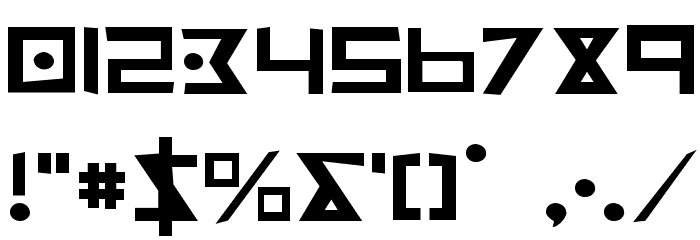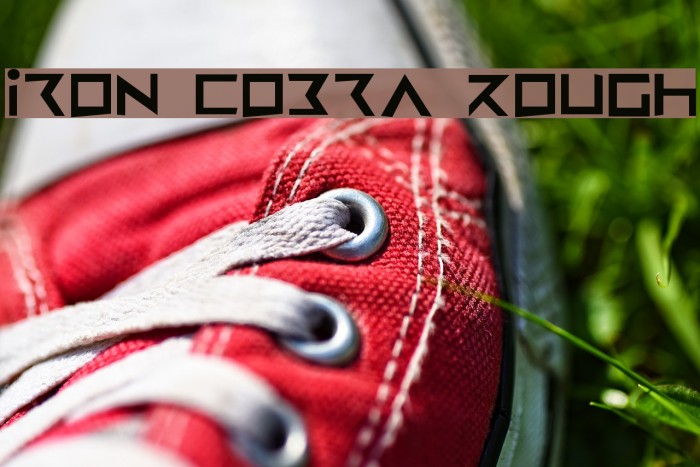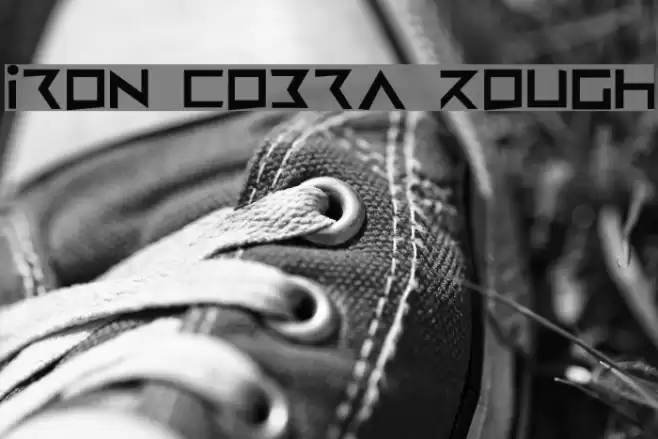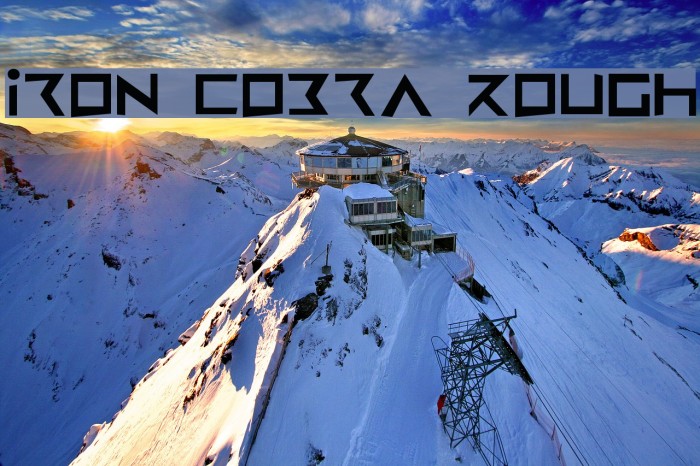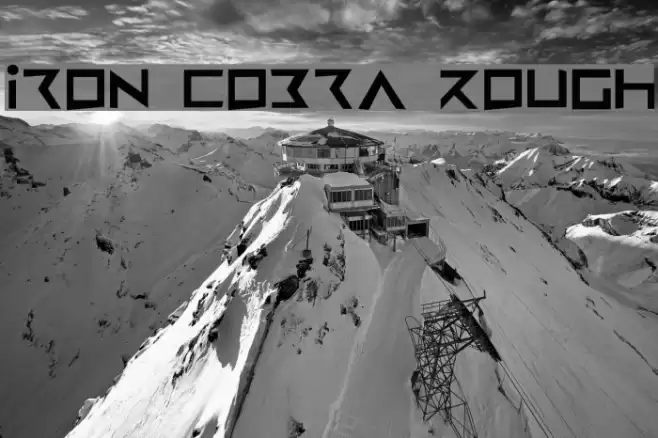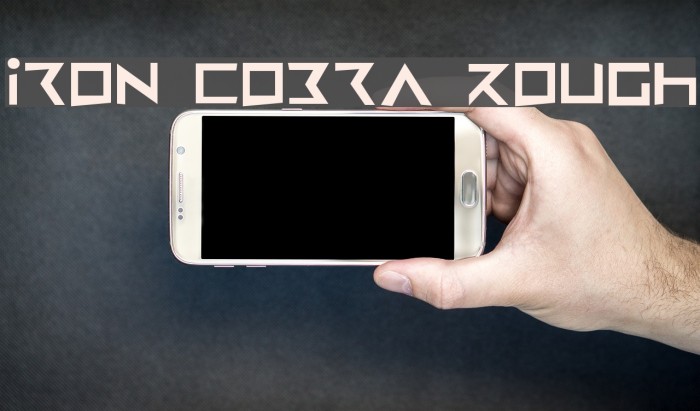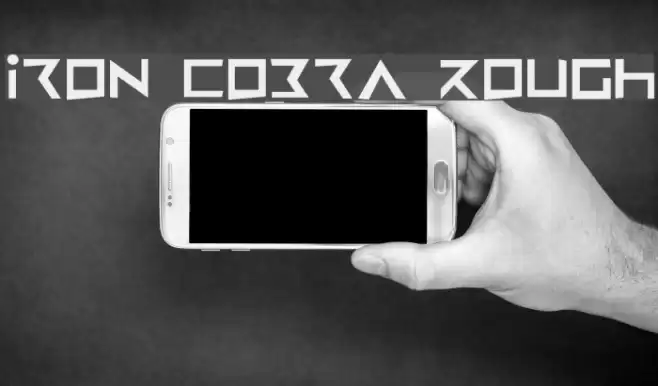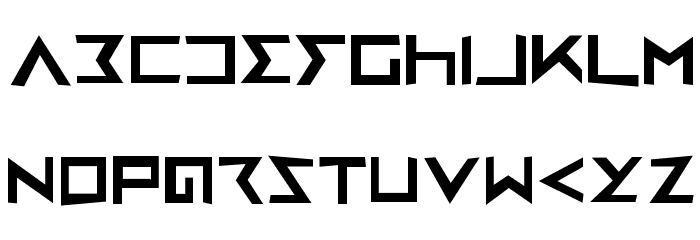
Iron Cobra Rough Font
This font features a bold, geometric design with sharp angles and unique cutouts, creating a futuristic and edgy appearance. The characters are constructed with thick lines and incorporate circular elements that add a distinct, almost mechanical feel. The uppercase and lowercase letters maintain a consistent style, emphasizing symmetry and balance. Numbers and special characters follow the same design principles, ensuring uniformity across all elements. The font's boldness and unique style make it stand out, suitable for projects that require a strong visual impact.
| Overall Style | Futuristic |
| Proposed Projects | Ideal for sci-fi themed designs, video game titles, posters, and branding that requires a modern and bold statement. |